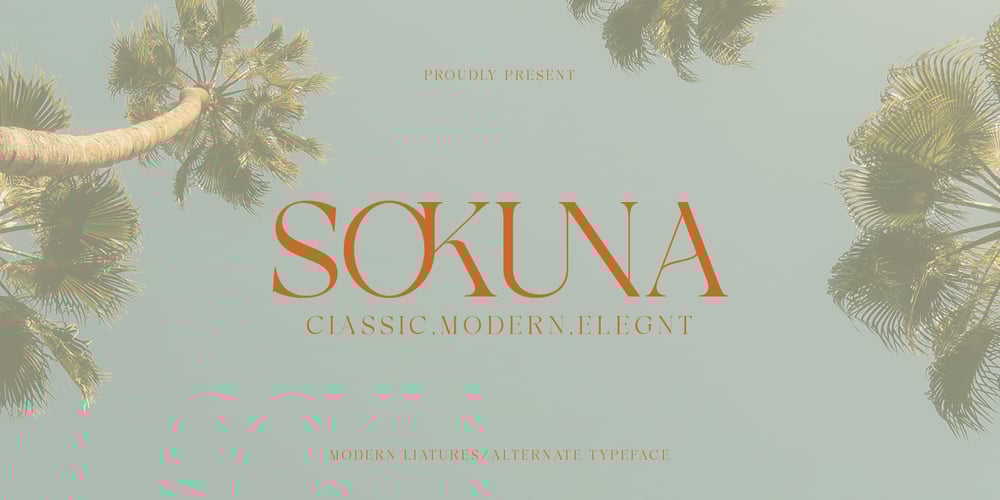
Sokuna Font Family was designed by Amri and published by Alterspieler. Sokuna contains 1 styles and family package options. Sokuna is a font with an Elegant, classic, and modern style. It has smooth and sleek serifs, giving a luxurious impression, The difference in thick and thin letters creates a dynamic appearance. Featuring a variety of unique letterforms that allow flexible use, Giving an editorial impression that is suitable for luxury branding, fashion design, and exclusive typography.This font is perfect for designs with premium aesthetics such as logos, invitations, or classic-modern style magazines.